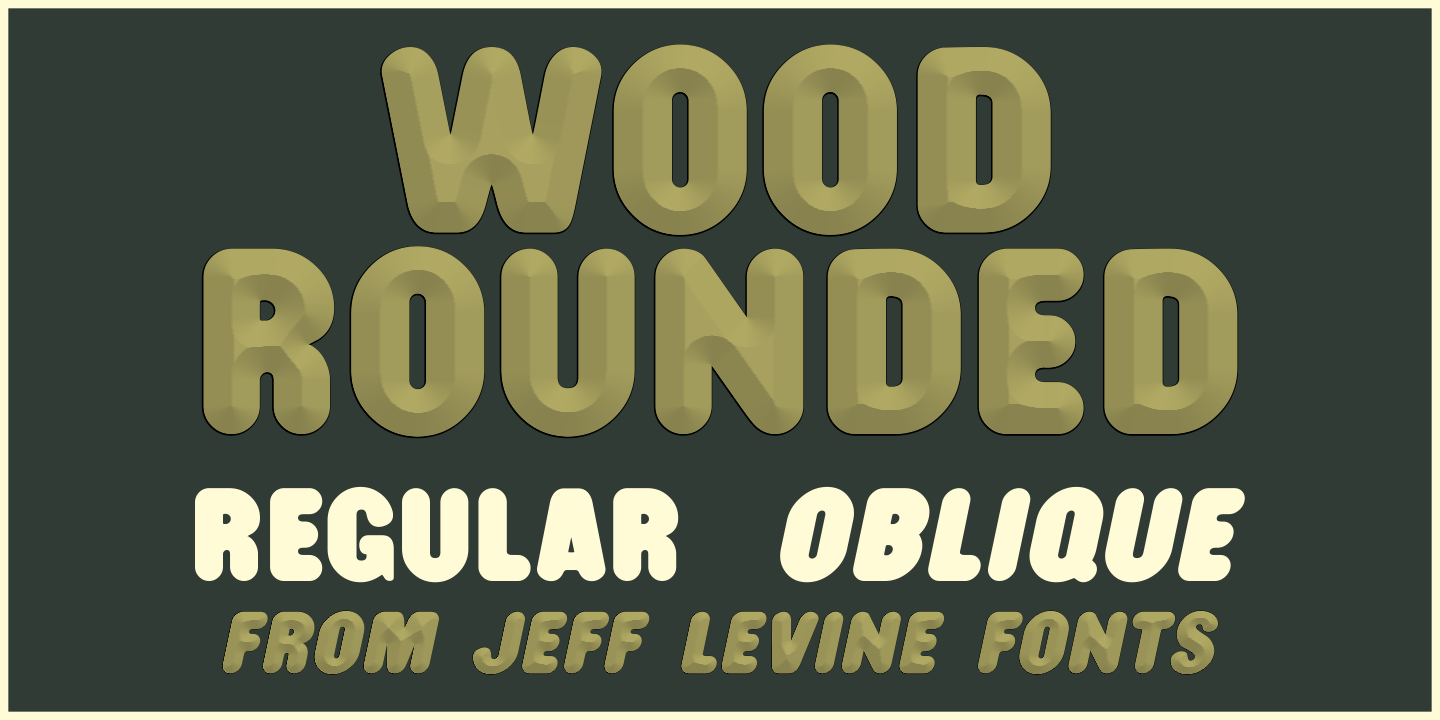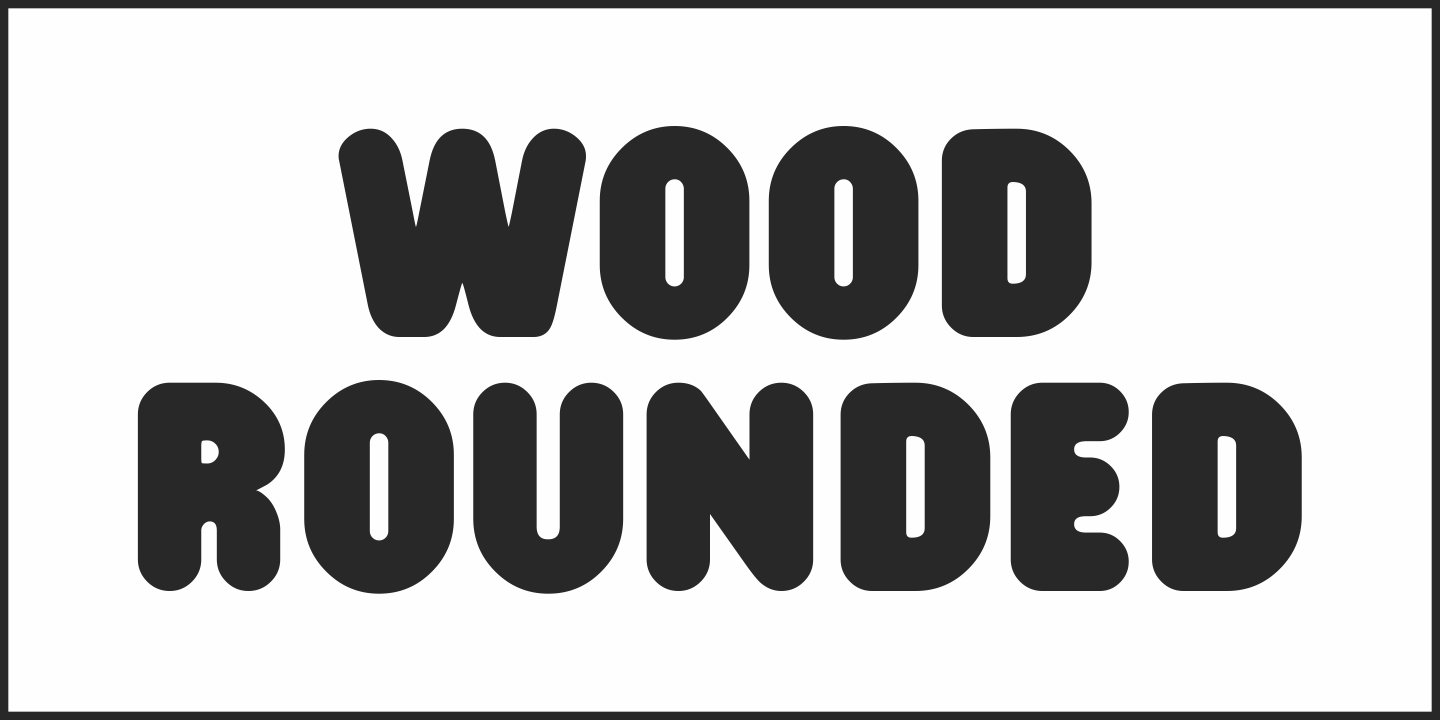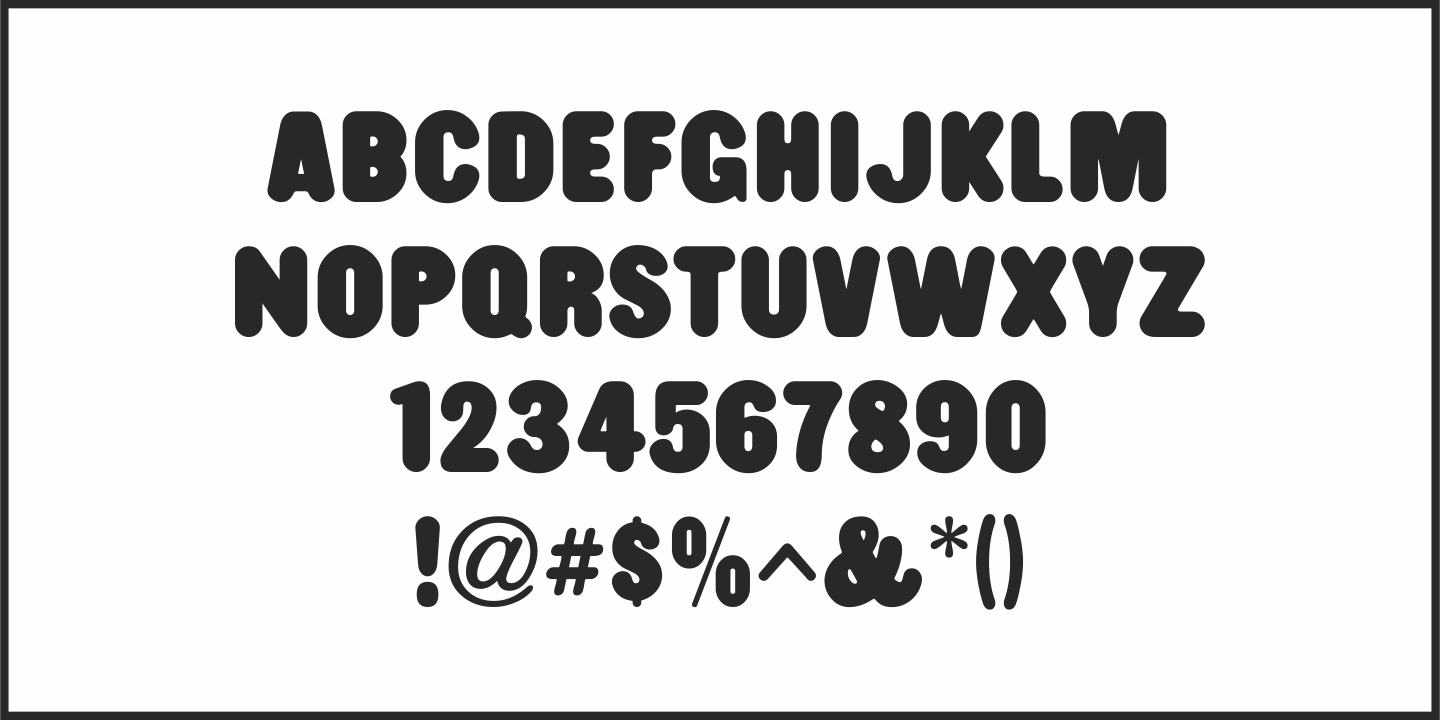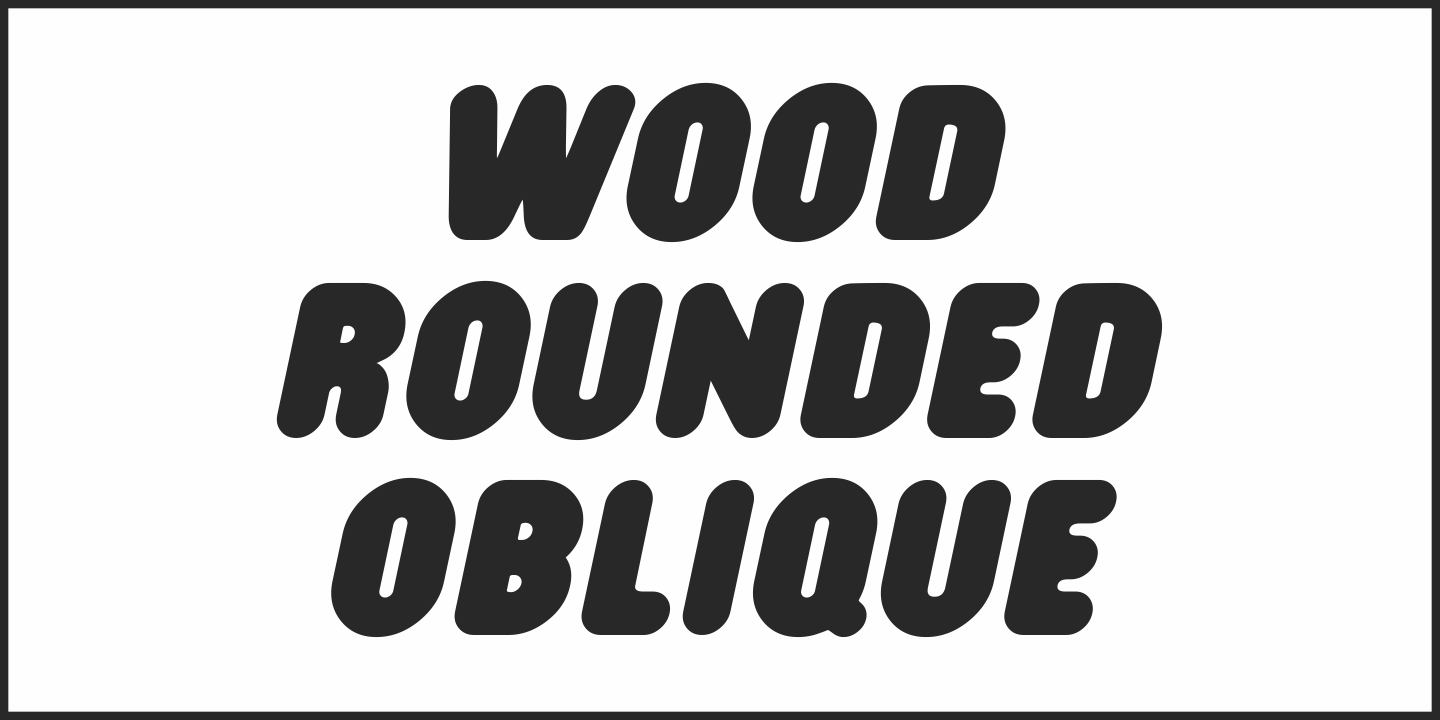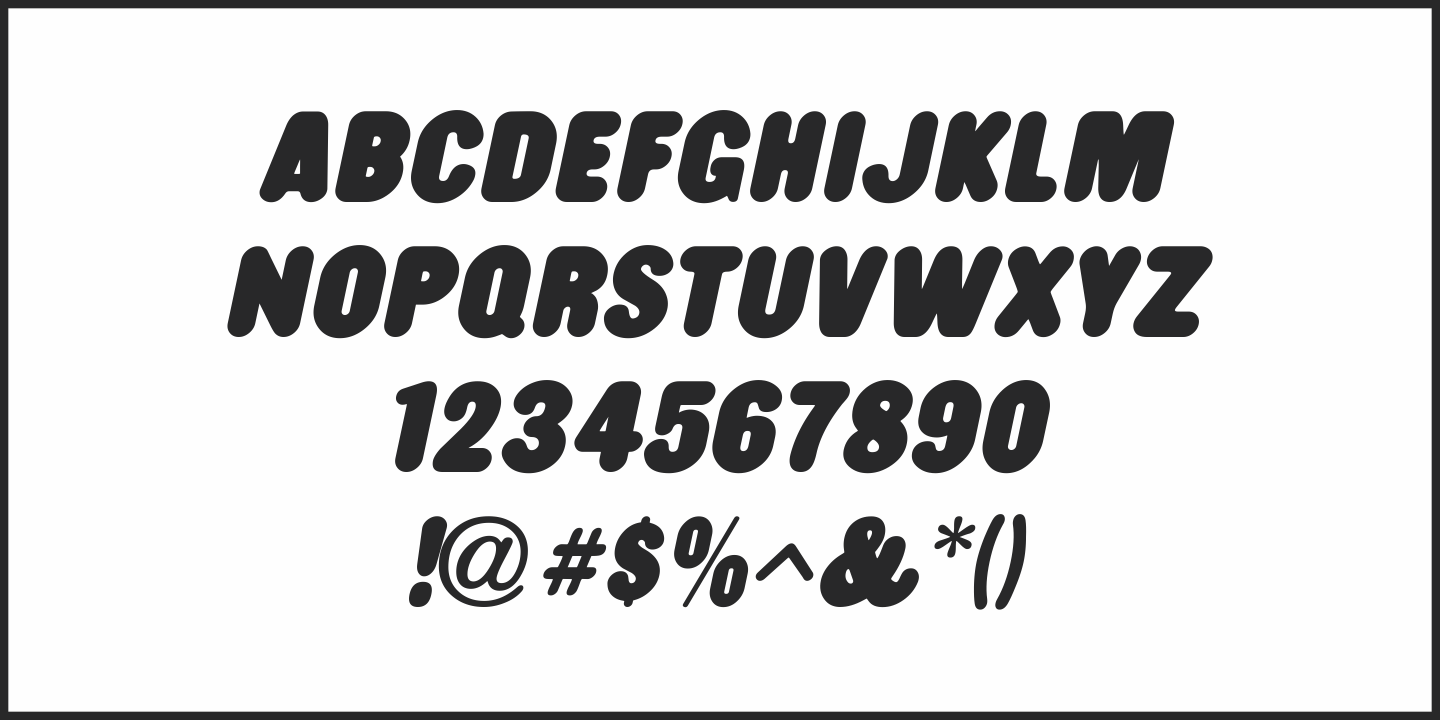
Wood Rounded
This reinterpretation of Caslon Rounded showcases one of the early attempts of type foundries to create a novelty ‘rounded’ typeface for general use.
While the lettering might easily convey a more modern look of 1960s or 1970s pop typography, its roots definitely lay in the later part of the 19th Century and the heyday of wood type design.
Wood Rounded JNL is available in both regular and oblique versions.